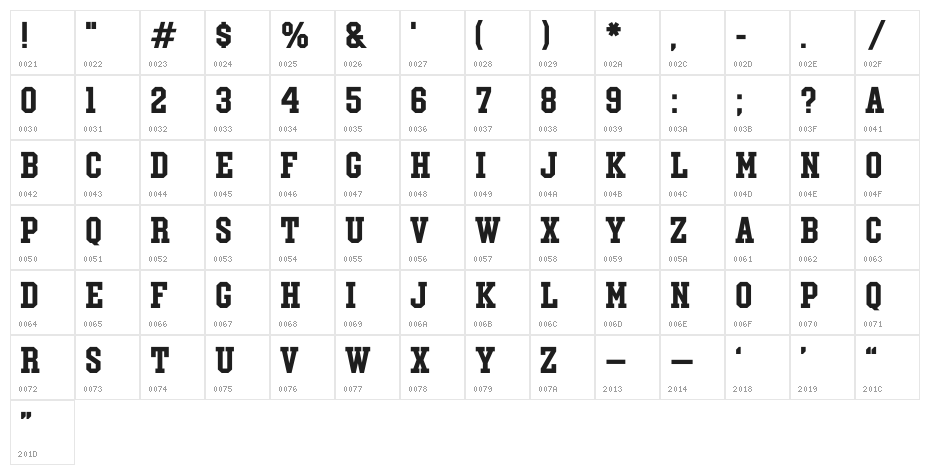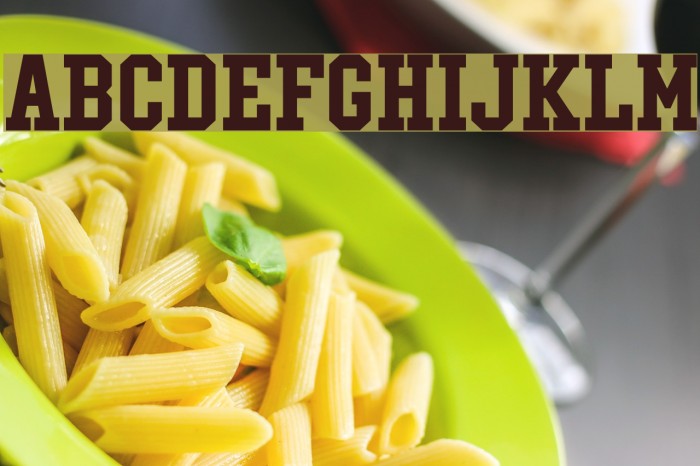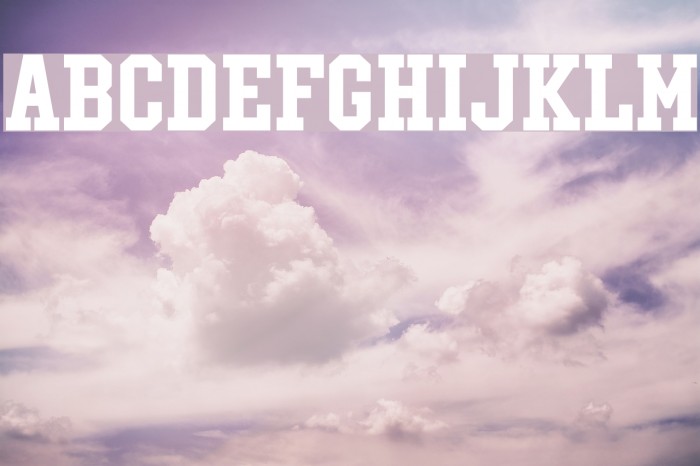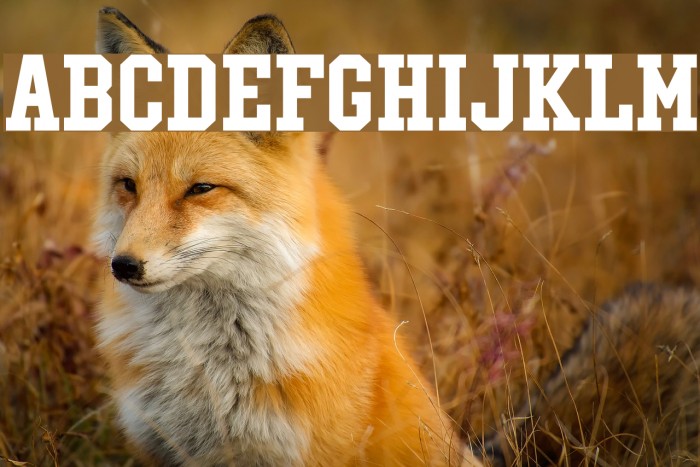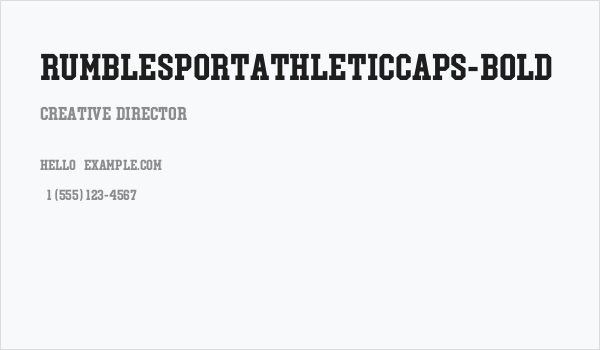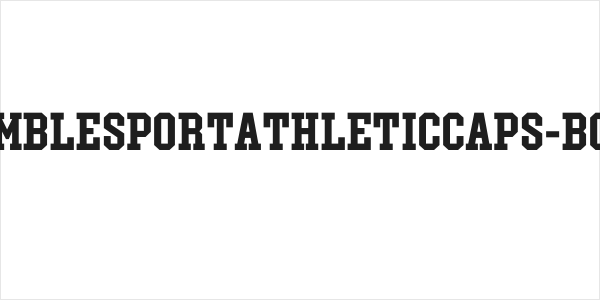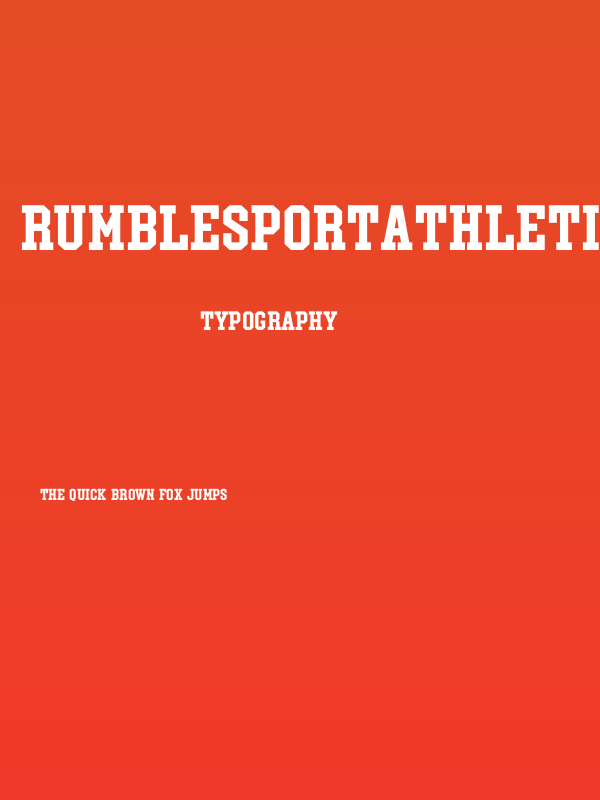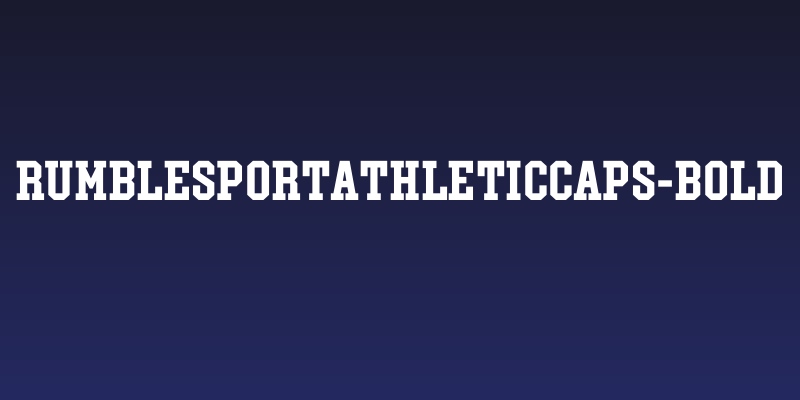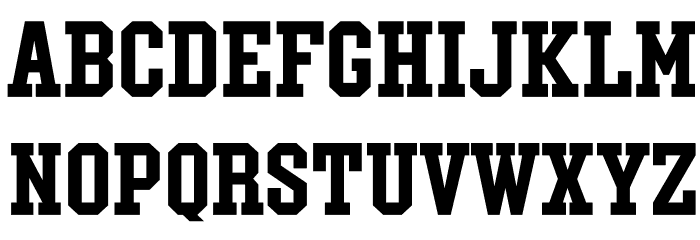
RumblesportAthleticCaps-Bold Font
RumblesportAthleticCaps-Bold Description
This font features a bold and athletic design, characterized by strong, blocky letters that convey a sense of strength and stability. The uppercase letters are prominent, with sharp edges and a uniform thickness that enhances readability. The numbers and special characters maintain the same bold style, making them suitable for impactful displays. The overall design is reminiscent of sports jerseys and athletic branding, making it ideal for projects that require a robust and energetic aesthetic.
| Proposed Projects | Perfect for sports team branding, athletic event posters, merchandise design, and dynamic headlines. |